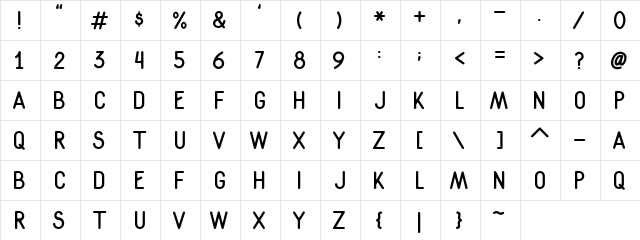
Everbright Sans Regular
| Designer | Muhammad Fatoni |
Design Context for Everbright Sans Typeface
Everbright Sans is a composed and adaptable typeface that performs quietly and consistently across a wide range of design contexts.